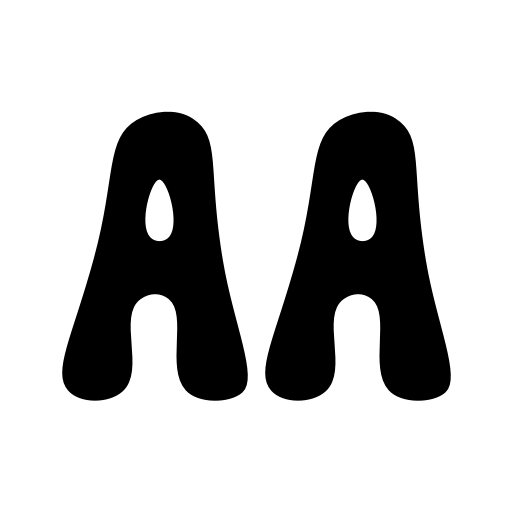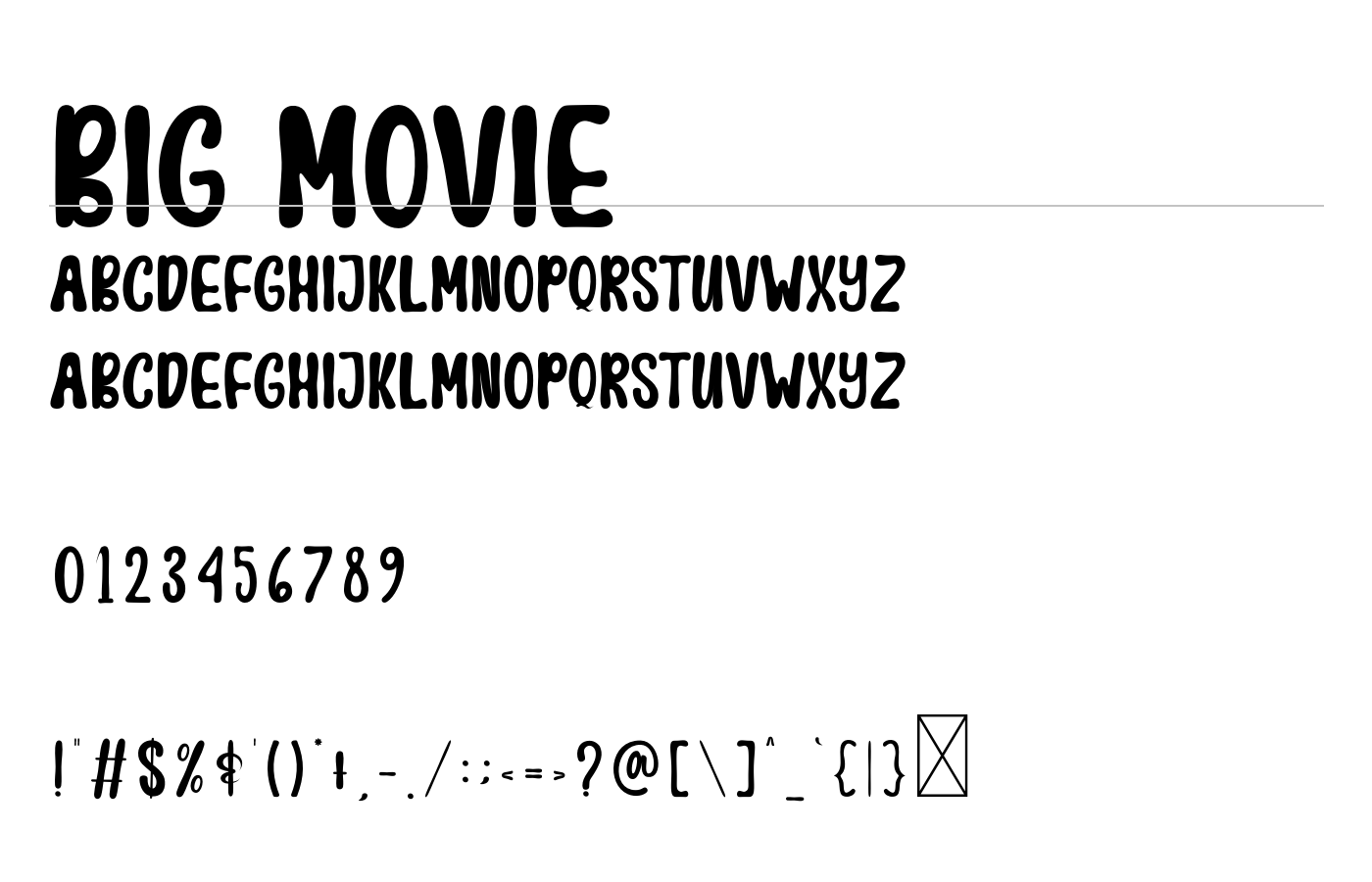
Big Movie is a playful, rounded sans serif font with a bold, chunky appearance that gives it a fun and approachable vibe. Its tall, slightly condensed letterforms with soft edges and quirky character shapes make it ideal for eye-catching headlines, posters, and branding that aims to feel friendly and informal. This font works especially well for creative projects, children’s content, or any design needing a lively and cheerful personality.
Big Movie Font
About Big Movie Font